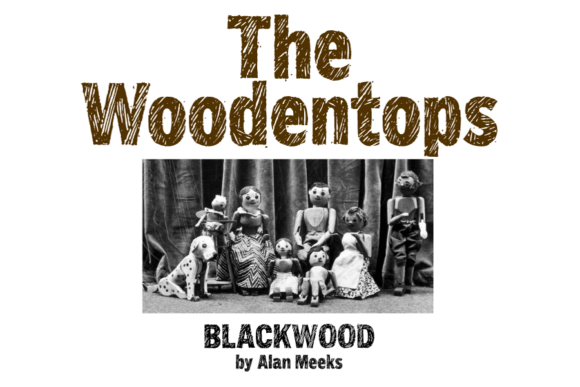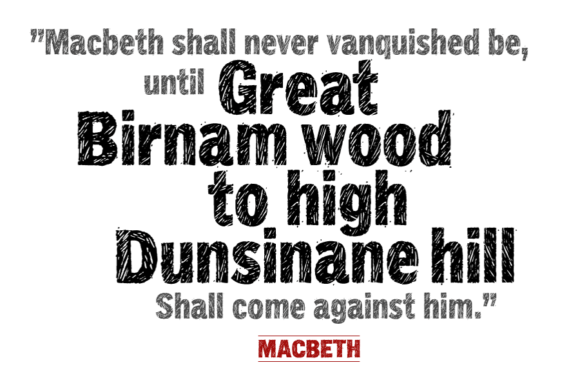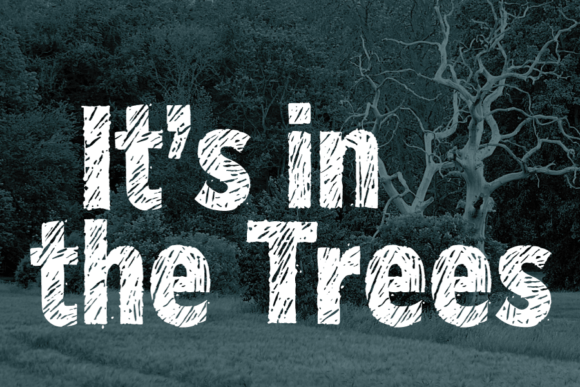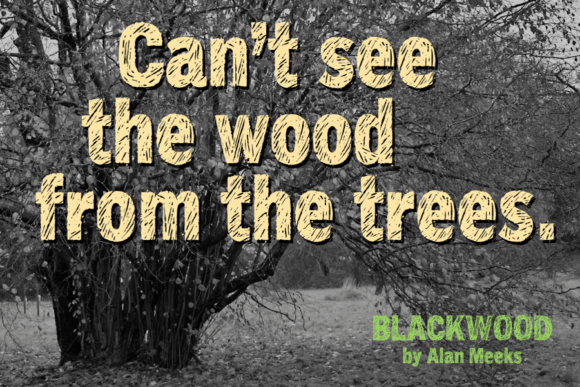
Unleashing the Power of Blackwood Font: A Comprehensive Guide
Are you a designer or crafter looking for a unique and eye-catching font to elevate your creative projects? Look no further than Blackwood Font, a stunning sans serif display headline font that combines strong, solid forms with a distinctive woodgrain effect. In this article, we’ll dive into the world of Blackwood Font, exploring its features, benefits, and uses, as well as provide tips and inspiration for incorporating it into your work.
What is Blackwood Font?
Blackwood Font is a sans serif display headline font designed with a woodgrain effect, giving it a distinctive and rustic feel. Based loosely on Grotesk, Blackwood boasts strong, solid forms with a unique style that’s sure to grab attention. Its bold and sturdy design makes it perfect for headlines, titles, and other display text, while its woodgrain effect adds a touch of warmth and texture.
Key Features of Blackwood Font
- Woodgrain effect: The woodgrain effect gives Blackwood Font a unique and organic feel, setting it apart from other sans serif fonts.
- Strong, solid forms: Blackwood’s bold and sturdy design makes it perfect for headlines and display text.
- Based on Grotesk: Blackwood’s design is influenced by the classic Grotesk font, giving it a solid foundation and timeless feel.
- Sans serif: Blackwood’s clean and minimalist sans serif design makes it easy to read and versatile.
Benefits of Using Blackwood Font
So why choose Blackwood Font for your next project? Here are just a few benefits of using this amazing font:
- Adds texture and interest: The woodgrain effect adds a touch of warmth and texture to your design, making it more engaging and visually appealing.
- Standout headlines: Blackwood’s bold and sturdy design makes it perfect for creating attention-grabbing headlines and titles.
- Versatile: Blackwood Font is versatile and can be used in a variety of contexts, from branding and advertising to packaging and signage.
- Unique style: Blackwood’s distinctive style sets it apart from other fonts, making it a great choice for designers and crafters looking to create something truly unique.
Using Blackwood Font in Your Design Projects
So how can you incorporate Blackwood Font into your design projects? Here are a few ideas to get you started:
- Headlines and titles: Use Blackwood Font to create bold and attention-grabbing headlines and titles.
- Branding and advertising: Blackwood Font is perfect for branding and advertising projects, adding a touch of texture and interest to your designs.
- Packaging and signage: Blackwood Font is also great for packaging and signage projects, where its bold and sturdy design can help your message stand out.
- Digital and print: Blackwood Font can be used in both digital and print contexts, making it a versatile addition to your font library.
Tips for Working with Blackwood Font
Here are a few tips for getting the most out of Blackwood Font:
- Experiment with sizes: Blackwood Font looks great in a variety of sizes, from large headlines to smaller body text.
- Play with color: The woodgrain effect in Blackwood Font can be enhanced or hidden with different color choices, so don’t be afraid to experiment.
- Pair with complementary fonts: Blackwood Font pairs well with a variety of fonts, so try pairing it with complementary fonts to create visual interest.
| Author | Alan Meeks |
Blackwood Font is a unique and eye-catching sans serif display headline font that’s perfect for designers and crafters looking to add texture and interest to their projects. With its strong, solid forms and distinctive woodgrain effect, Blackwood Font is sure to grab attention and make your message stand out. Whether you’re working on branding and advertising projects, packaging and signage, or digital and print designs, Blackwood Font is a versatile and powerful tool that’s sure to elevate your work.